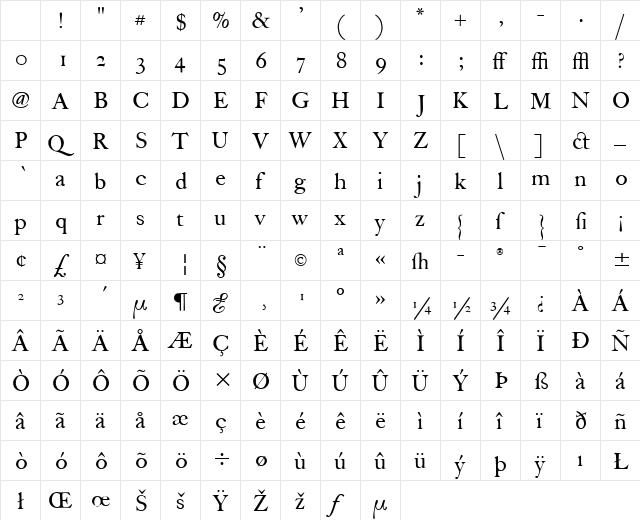
FCaslon 30 ITC Regular
Designer: Justin Howes
Design Context for FCaslon 30 ITC
FCaslon 30 ITC is a composed and adaptable typeface that performs quietly and consistently across a wide range of design contexts.